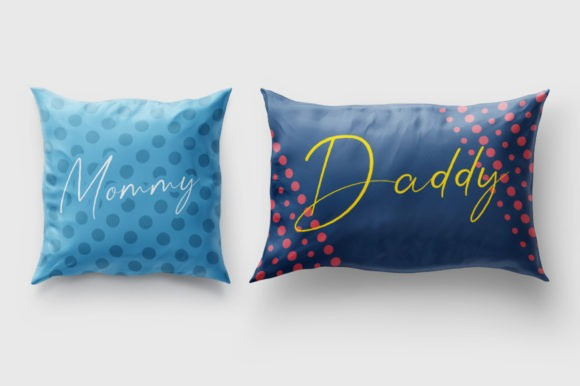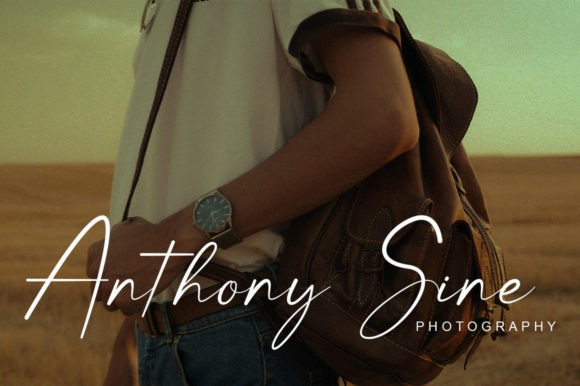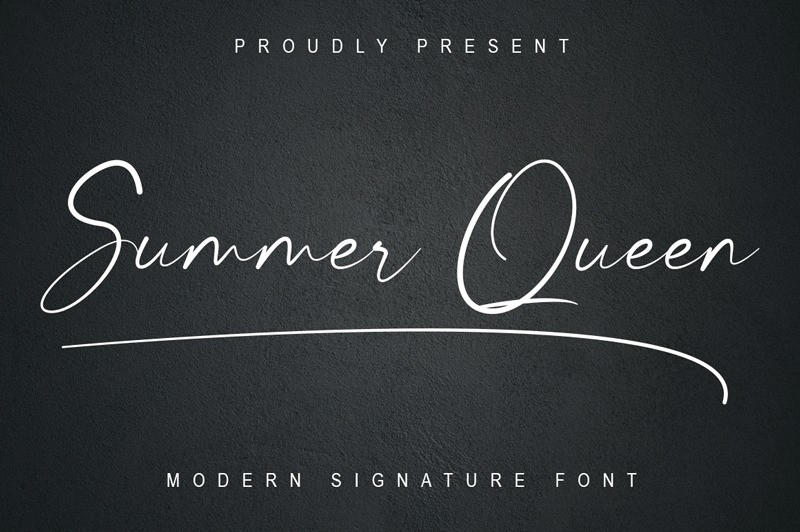
Summer Queen Handwritten Font is modern script font, every single letters have been carefully crafted to make your text looks beautiful. Made from font designer named Rikbar Creator. This font is a modern signature typeface that will add elegant, simple and beautiful touch to any design like wedding card, invitation card, event promotion and more. This font is PUA encoded which means you can access all of the glyphs and swashes with ease!